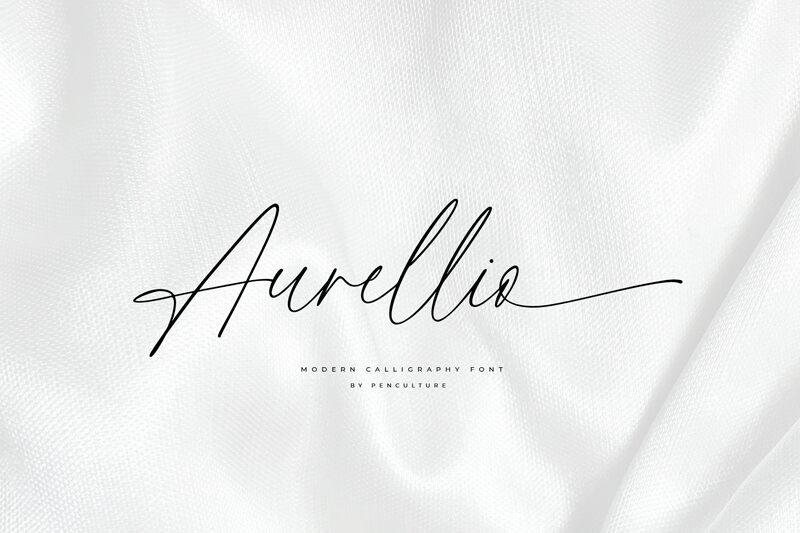
Aurellio, created by Pen Culture, is a modern signature font that exudes elegance and sophistication. With its delicate strokes and graceful curves, this extra-light typeface adds a touch of refinement to any project.
Perfect for wedding invitations, luxury branding, or high-end editorial design, Aurellio effortlessly conveys a sense of exclusivity and style. Its fluid lines and unique letterforms make it ideal for creating captivating logos or eye-catching packaging. Whether you're designing for the fashion industry or crafting an upscale lifestyle blog, Aurellio is the font that will make your work truly stand out.
Designed by Revo Farisky from Pen Culture in 2022